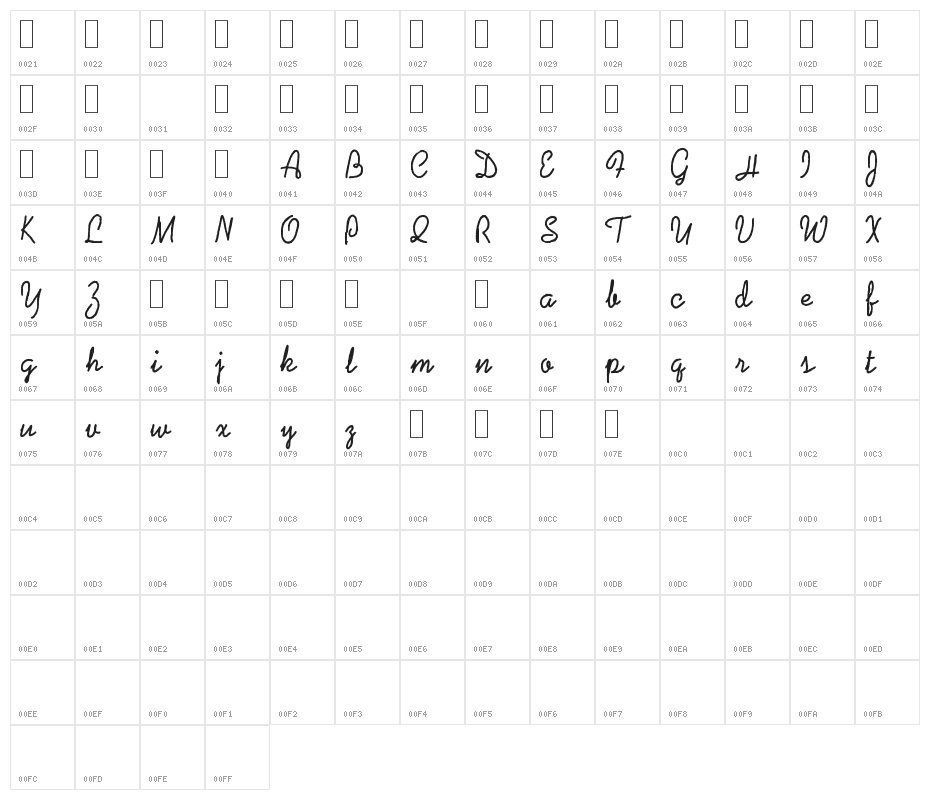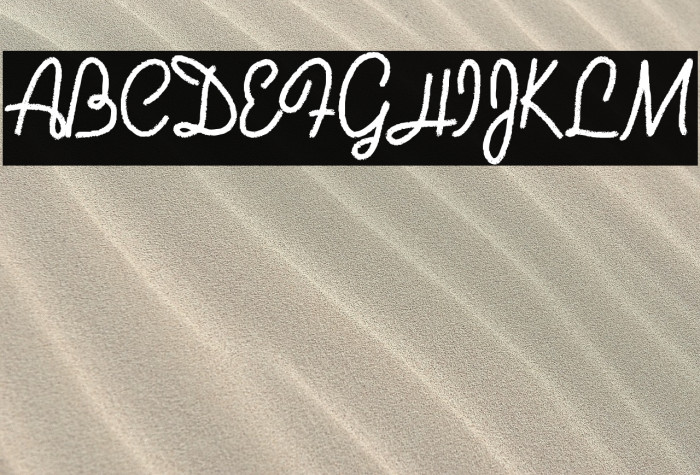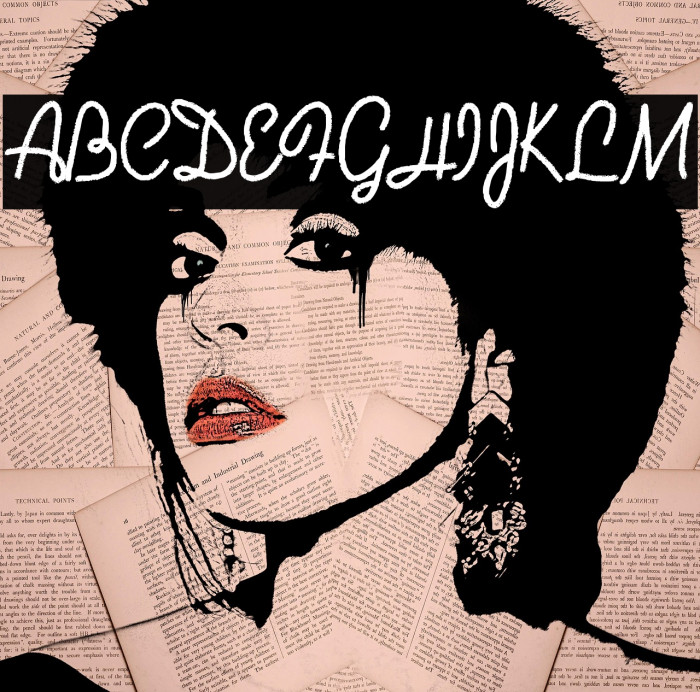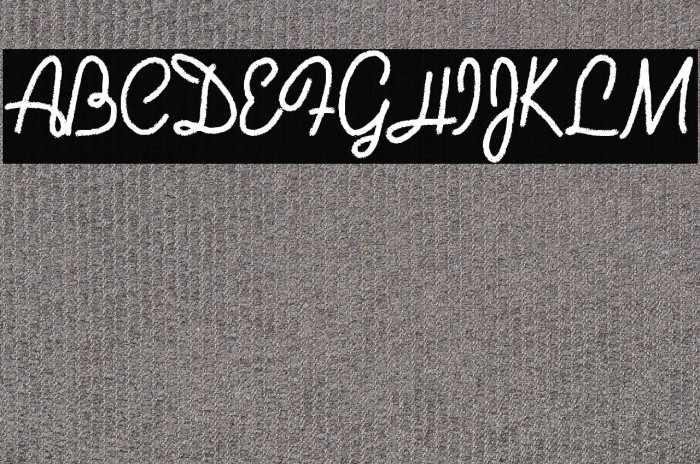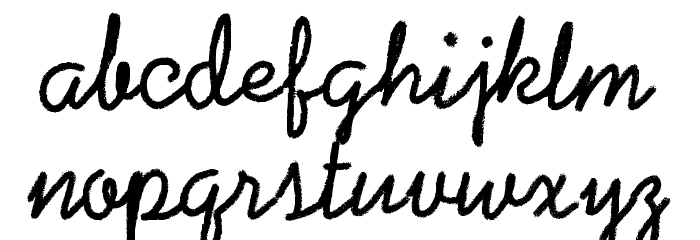
Coalpen Demo Font
Coalpen Demo Description
This font exudes a lively and dynamic character with its handwritten style, featuring fluid and connected strokes that mimic the natural flow of cursive writing. The uppercase letters stand tall with a slight slant, while the lowercase letters maintain a consistent baseline, adding to the cohesive appearance. The strokes vary in thickness, providing a medium contrast that enhances readability while retaining an artistic flair. The overall design is reminiscent of a casual yet elegant script, making it suitable for projects that require a personal touch. The spacing between characters is normal, ensuring clarity and legibility.
| Overall Style | Casual, Elegant |
| Use Case | Invitations, Greeting cards, Personal branding |
| Proposed Projects | Ideal for wedding invitations, greeting cards, personal branding, and creative projects requiring a personal touch. |